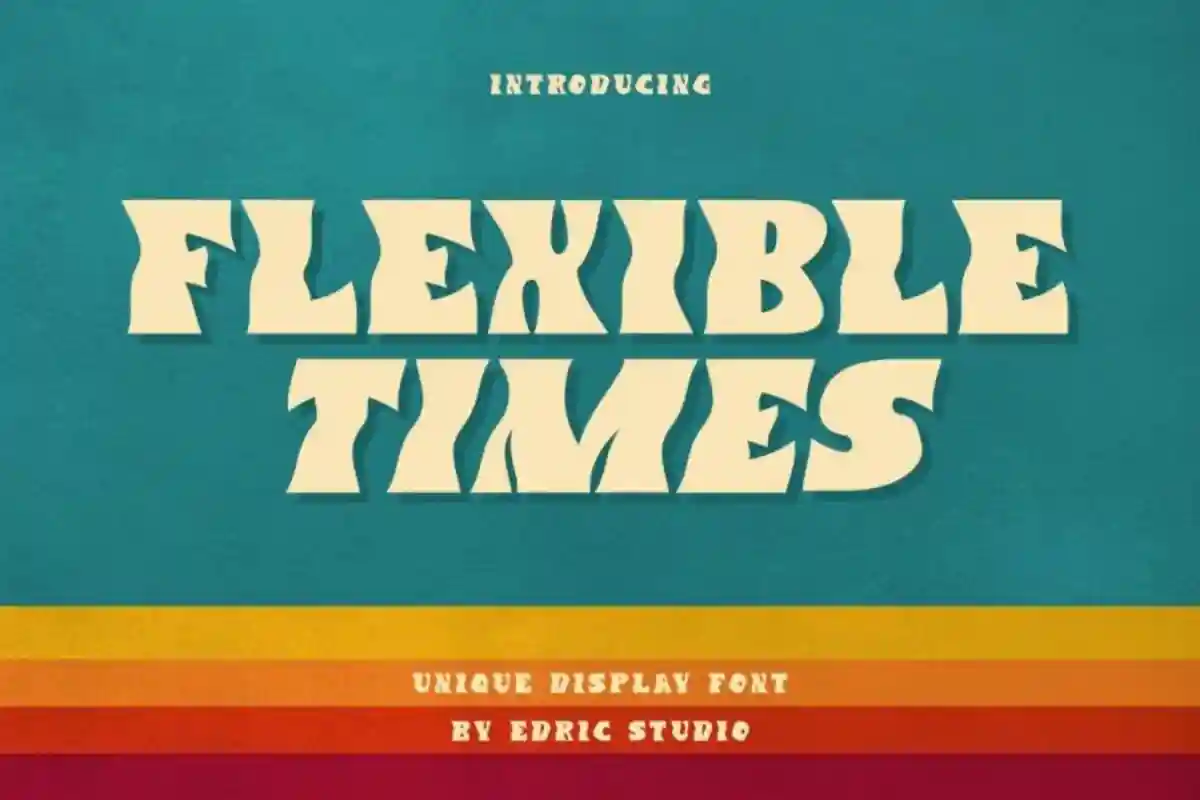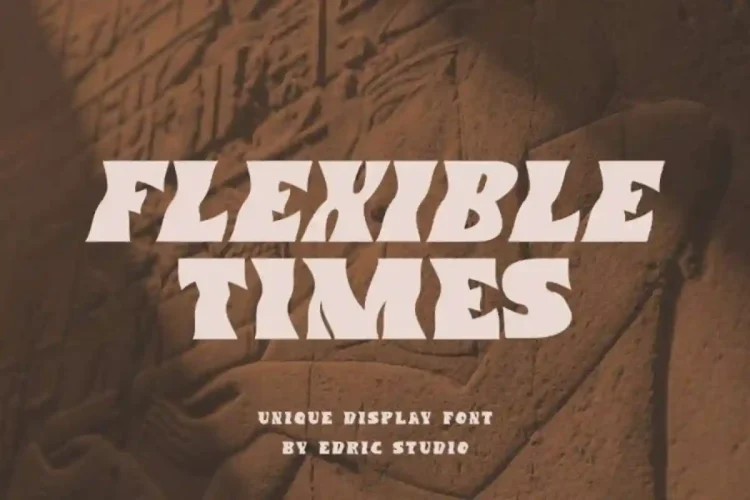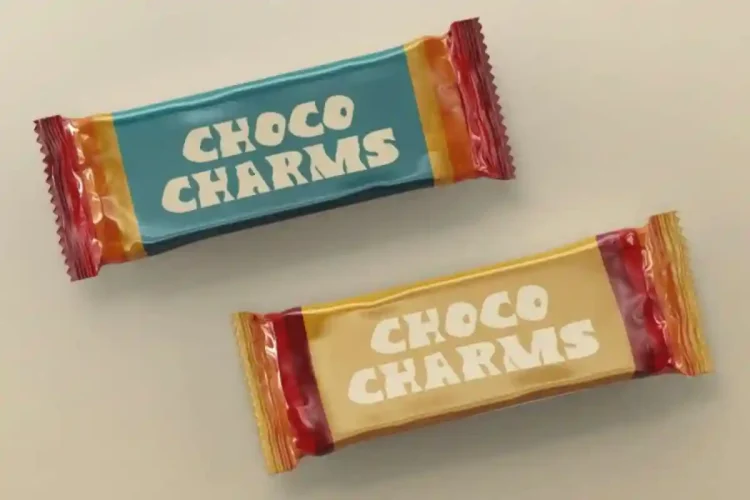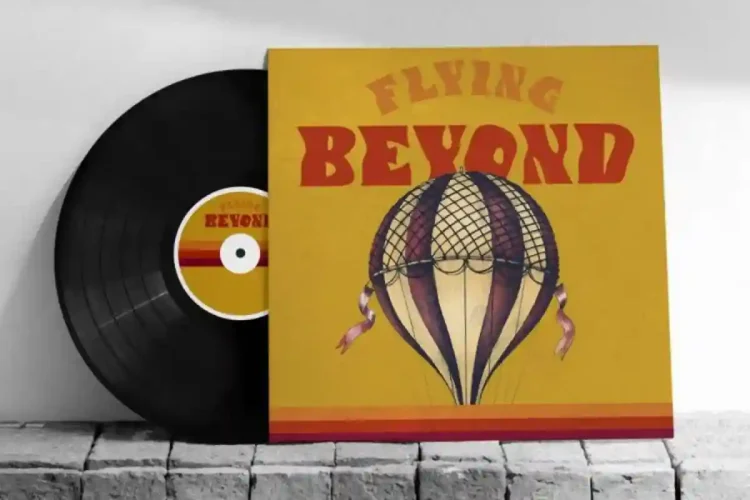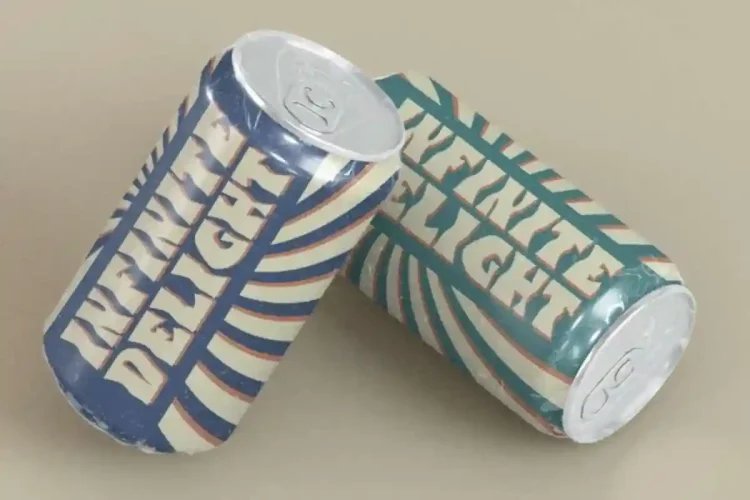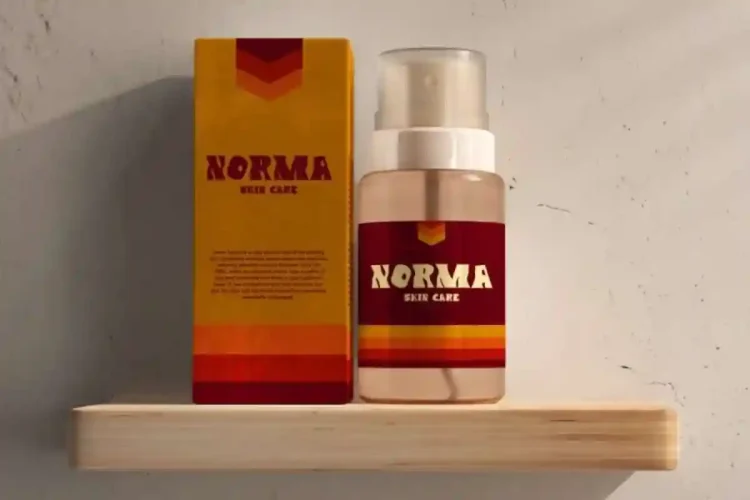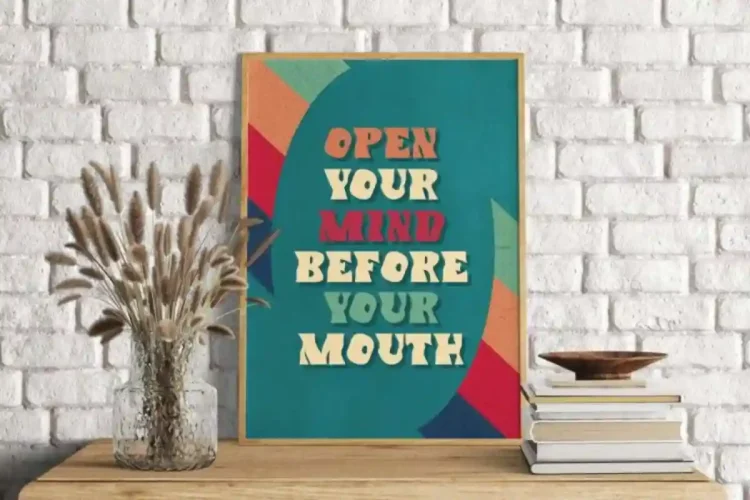
Flexible Times Retro Font
Flexible Times Font is a retro display font with a bold waves font appearance, created by EdricStudio. Use this font for all industries, including : antique furniture, beauty product, café, food and beverage, fashion, handicrafts, interior design, movie, music, etc.
Flexible Times Font comes with a full set of Uppercase and Lowercase Basic Characters, Number, large range of Punctuation and Symbol. It has a stunning characters set, perfectly managed with well spaced and kerning. Flexible Times Display Font will be great for any projects (with extended license) including: billboard, brand logo, cover, frame, header, label, magazine, product packaging, and will have the potential to take your every creative idea to the highest level!
Flexible Times Font is a playful typeface with unique decoration in each character. Ready to use both on Windows machine or Mac with simple installations. It’s tested to work well in the Adobe Apps (Illustrator, Adobe InDesign, Adobe Photoshop) even work on Microsoft Word. PUA Encode Characters means you can access all characters easily – Fully accessible without additional design software.